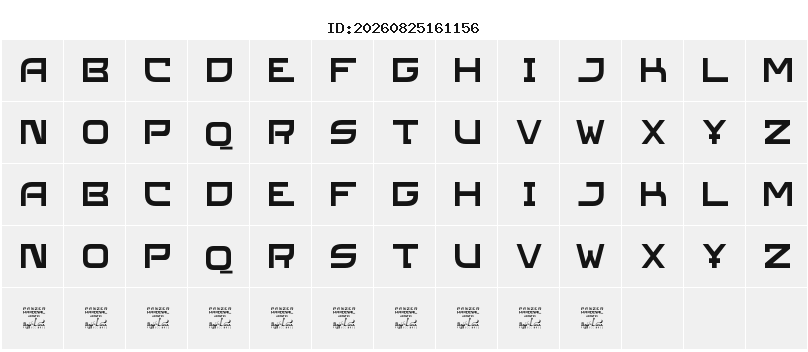
About SL Panzerkardinal.ttf
SL Panzerkardinal.ttf is a modern, elegant sans-serif font designed for ultimate readability and visual harmony. Perfect for branding, headlines, web design, and print materials.